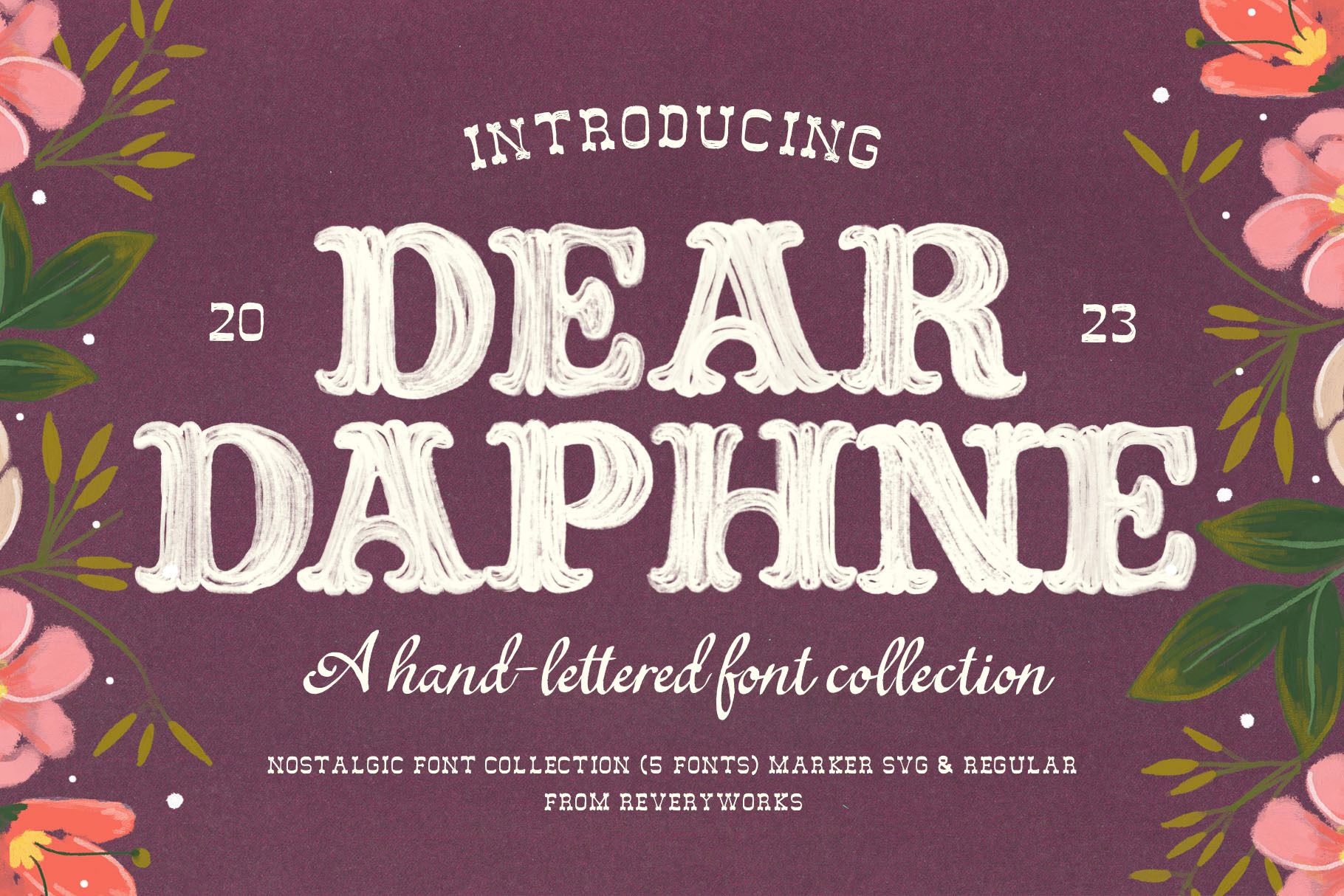
Dear Daphne Font Collection
Say hello to Dear Daphne! A vintage font collection inspired by the English Regency Era, with a modern twist! Available in Regular & SVG fonts with built in texture and transparency for that ultra real hand lettered look!
REGULAR FONTS: For those who would prefer it - a regular vectorized version of the SVG fonts is included (see regular fonts in action in Cake & Crumb & Bridal Sprinkle previews)